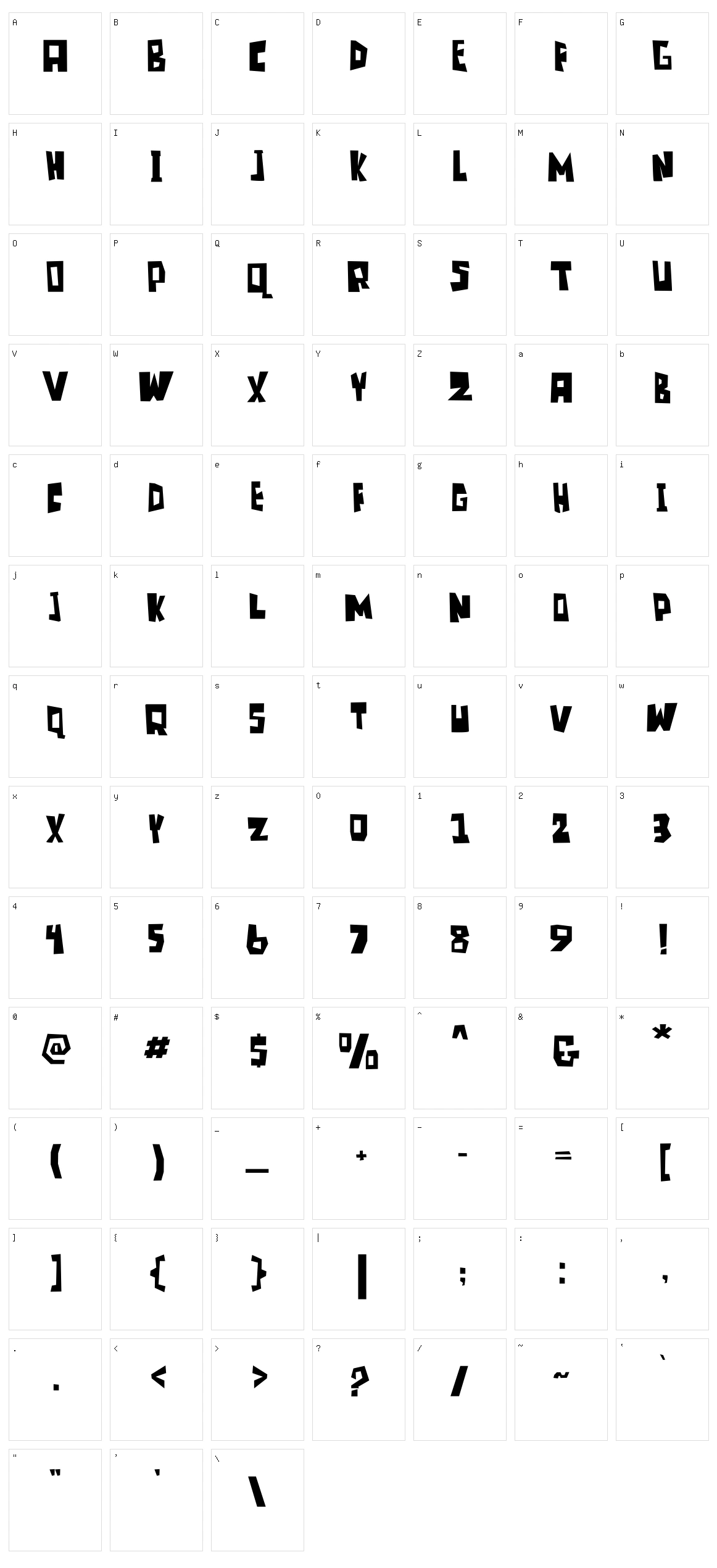
The free font Blonkster is carefully designed by Kurnia Setyadi, showcasing a thoughtful balance of creativity and usability and falls under the Cartoon font style. When you download the ZIP file, it contains only 9.26 KB of font files, making it lightweight and quick to download. Please review the license details below to understand permitted usage and distribution rights. If license information is not available, we recommend using this font for personal projects only or contacting the author directly for commercial usage permissions.